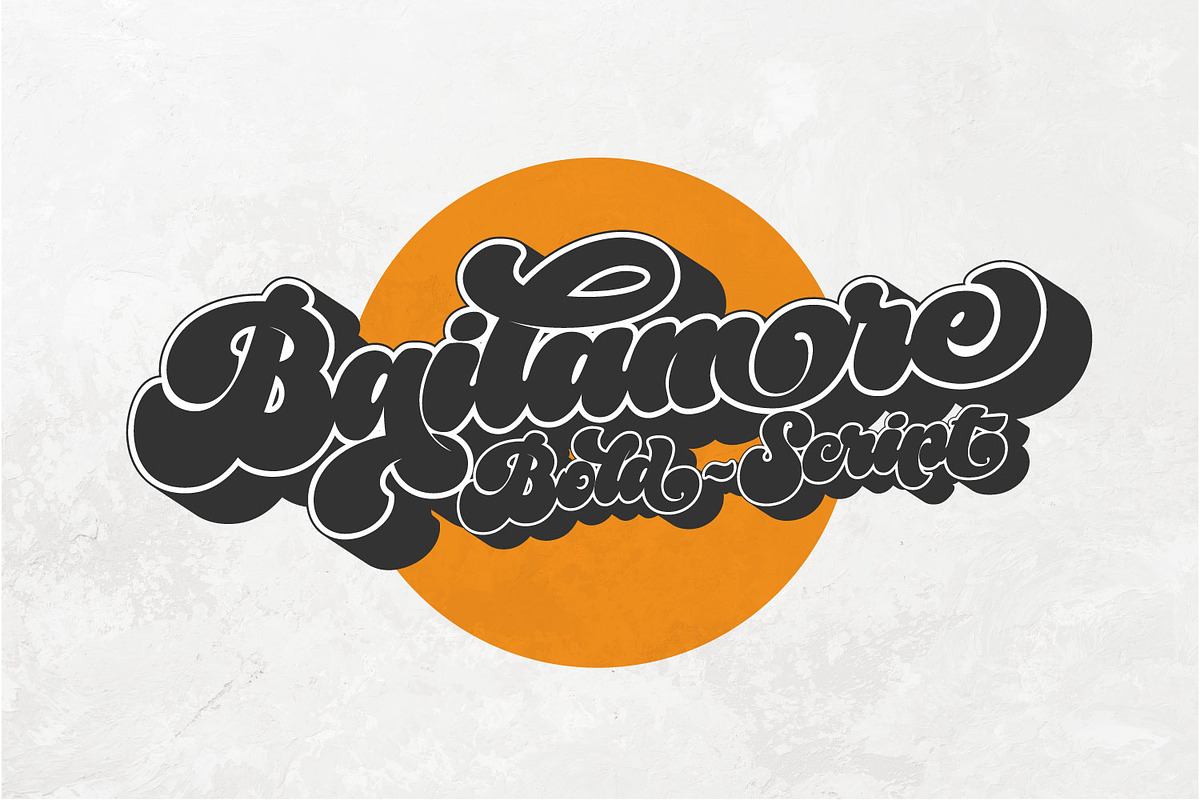
Bailamore - Retro Display Font Free Download
Bailamore - Retro Display Font Free Download is a vibrant and nostalgic typeface that brings the groovy spirit of the past to modern design. With its bold curves, funky flair, and vintage-inspired letterforms, Bailamore is perfect for retro posters, music event flyers, t-shirt designs, and playful branding that needs a blast of personality.
Bailamore - Retro Display Font Free Download captures the essence of 70s and 80s design with a fun, carefree vibe. Whether you're crafting a throwback logo or adding retro charm to packaging and social content, this font delivers timeless flair. Download it now and let Bailamore take your designs for a stylish spin through the past!